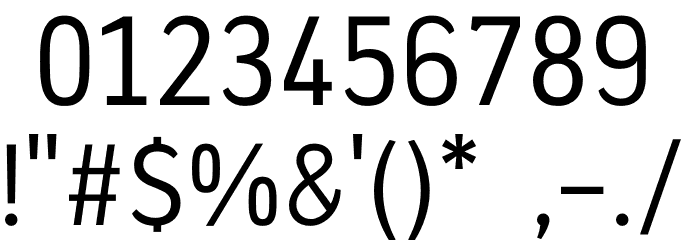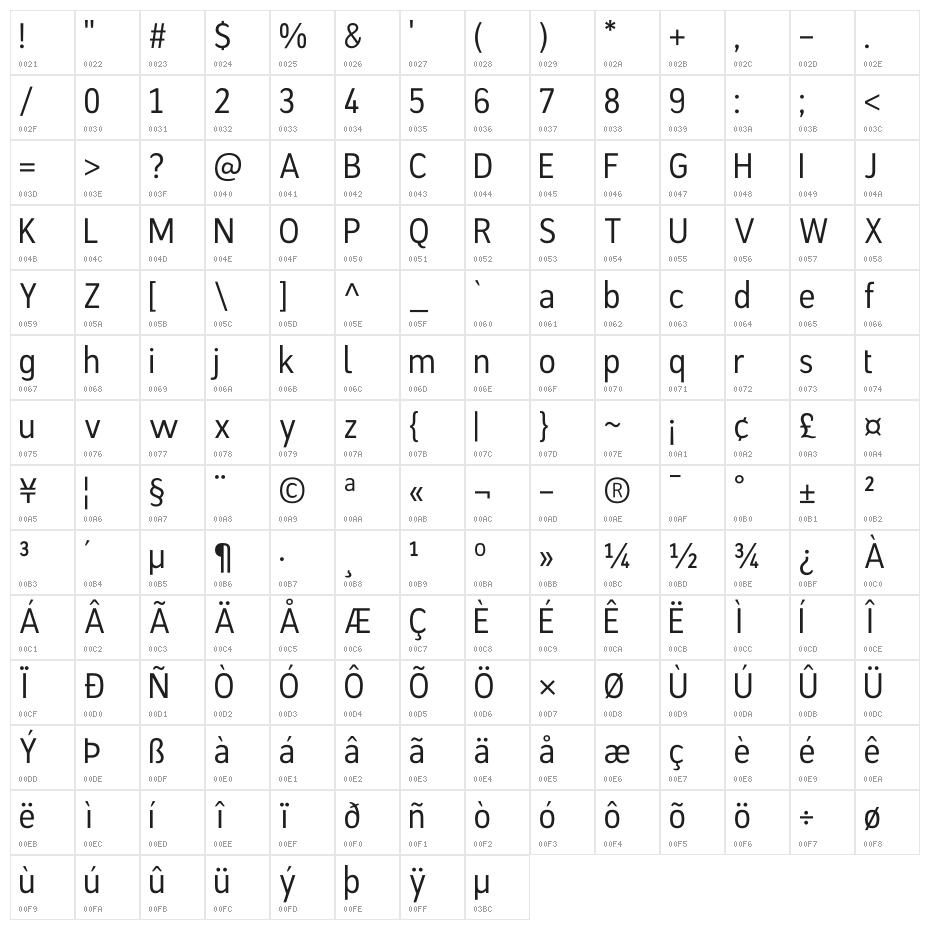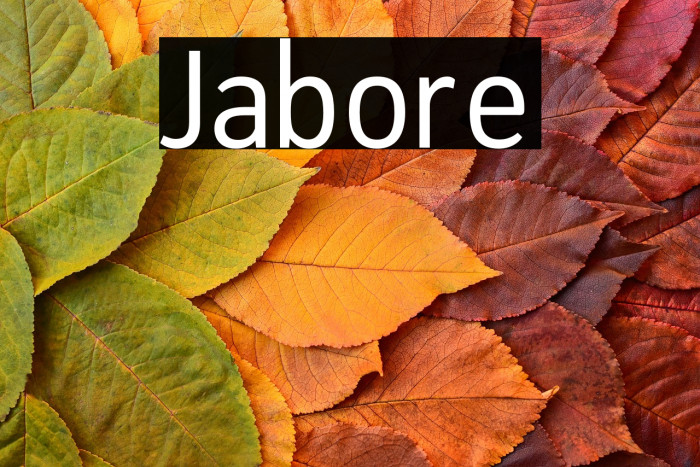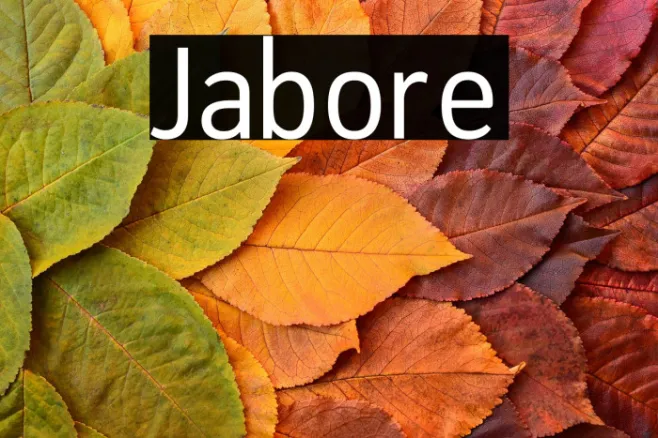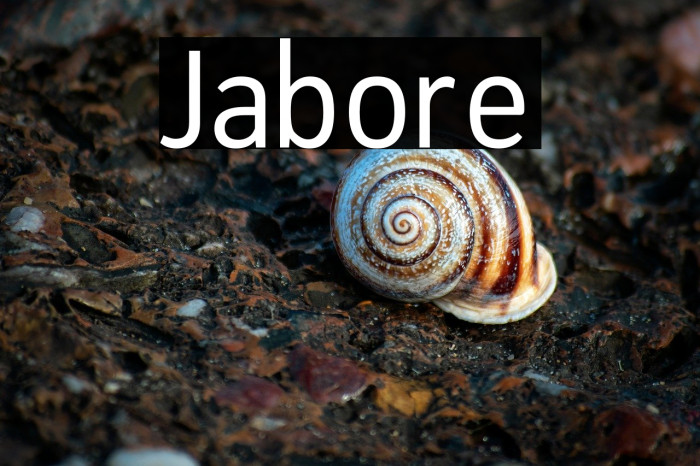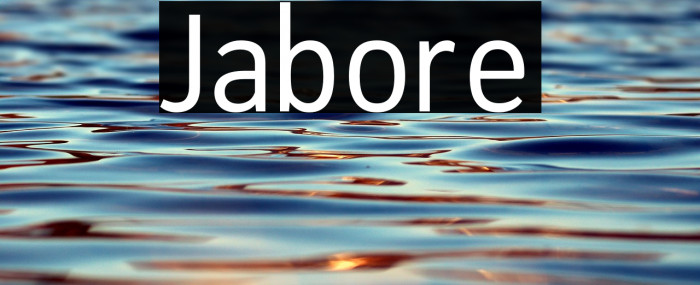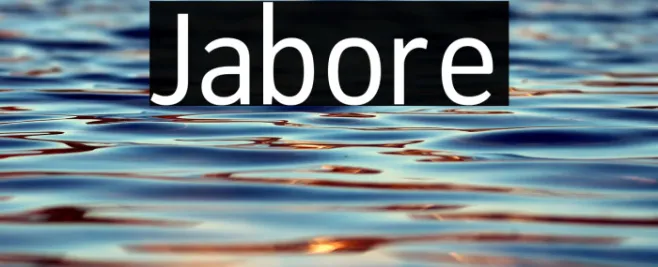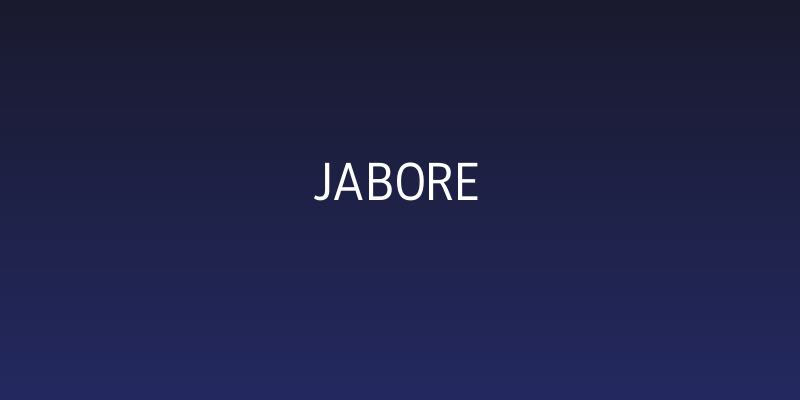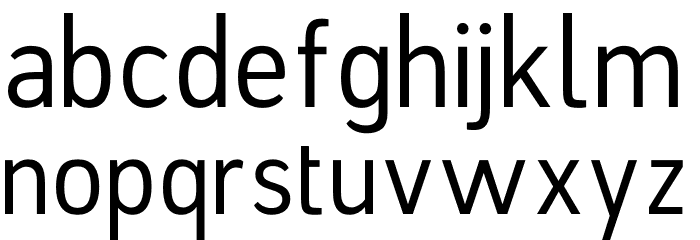
Jabore Font
Jabore Description
This font features a clean and modern sans-serif design, characterized by its uniform stroke width and geometric shapes. The uppercase letters are bold and assertive, while the lowercase letters maintain a consistent and harmonious appearance. The numerals are clear and easily distinguishable, making them suitable for various applications. Special characters are well-integrated, ensuring versatility in usage. The overall design is minimalist, focusing on readability and functionality, making it ideal for both digital and print media.